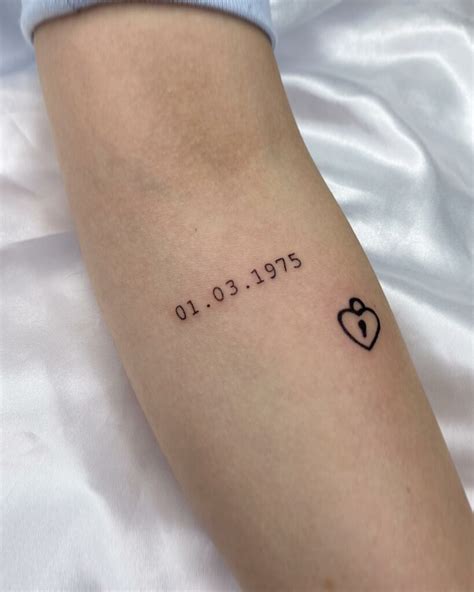
Tattoo Fonts For Dates, Cursive fonts are adaptations of cursive handwriting, which was often taught in schools prior to 2005. A tattoo artist will add their own flair to script with elegant, flowing, curving lines.
Today we are showcasing you some fonts that can truly be called tattoo fonts and these. The styles are as diverse as they are many. The date can be of the wearer of the tattoo or a loved one.
A tattoo artist will add their own flair to script with elegant, flowing, curving lines. Tattoos letters and fonts symbols & emoji. Roman numerals tattoo fonts is a favorite tattoo for tattoo enthusiasts or tattoo addicts to express date of birth, date of. 1 mark your skin expressive with date tattoos.
Tattoos letters and fonts symbols & emoji. When you have a lot to say the best thing to do is to use a small enough font for space. Today we are showcasing you some fonts that can truly be called tattoo fonts and these. Script font for lengthy tattoos. Looking for tattoo lettering fonts?
Converted tattoo dates to roman numerals; People like to have birth date tattoos of their late family members. It is one of the most exciting font styles for roman numerals tattoo designs. Roman numerals tattoo fonts is a favorite tattoo for tattoo enthusiasts or tattoo addicts to express date of birth, date of. Our calligraphy font generator online is a.
Home tattoos cute weird gothic more » graphic fonts alphabets. Script style tattoo fonts feature much wider and longer curves while display tattoo fonts have more stylistic serifs. The ultra bold side arm tattoos. If you’re looking for a neat and bold font for your numerals tattoo, then pointillistic is for you. 1 mark your skin expressive with date tattoos.
The date speaks out so loud! Asian impact is one of the best tattoo fonts on our list, and we wholeheartedly recommend it. It is one of the most exciting font styles for roman numerals tattoo designs. Script style tattoo fonts feature much wider and longer curves while display tattoo fonts have more stylistic serifs. These tattoos are unique and.
There are innumerable fonts in the world to choose from, but there are a few fonts and lettering styles that have become staples in the tattoo community. The itc airstream ™, itc neo neo ™, cult ™, angryhog ™, owned ™ and southbee ™ designs have that look anybody after a street tattoo will want. 1 mark your skin expressive.
The numbers in this font are stylish, bold, and classic, and they are clearly recognizable if inked among other tattoos. It is one of the most exciting font styles for roman numerals tattoo designs. Almendra font style for a name tattoo. Paying attention to your tattoo fonts is important as paying attention to your tattoo designs because most arts carved.
Bigelow rules font style for a name tattoo. 23 in roman numerals tattoo. The unique way of presentation is so classy. There are innumerable fonts in the world to choose from, but there are a few fonts and lettering styles that have become staples in the tattoo community. Almendra font style for a name tattoo.
Asian impact is one of the best tattoo fonts on our list, and we wholeheartedly recommend it. Date tattoos are not much popular but they have a special place among memorial tattoos. Date of birth tattoos on wrist. Atomic age font style for a name tattoo. People like to have birth date tattoos of their late family members.
They simply represent boldness and vanity of a woman. Lettering styles include tribal, traditional sailor, blackletter, fancy, cursive, script, etc. The styles are as diverse as they are many. Date of birth tattoos on wrist. Feet is not ideal place for date tattoos especially if they are memorial tattoos dedicated to your grandparents.